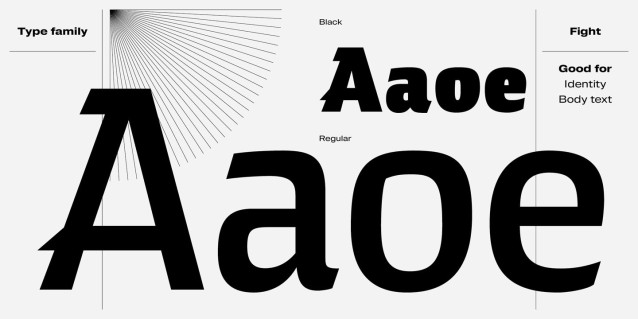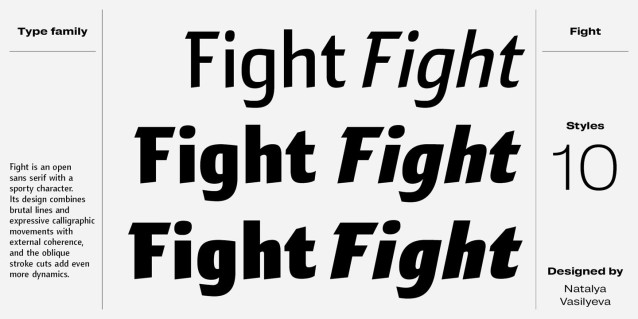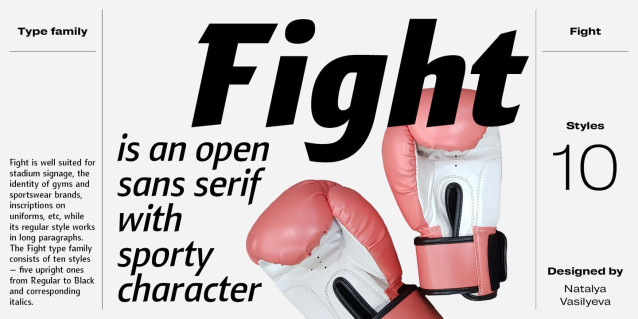
Fight Font Family
Fight Font Family is a modern sans-serif typeface with a sporty edge. Its design blends bold, angular lines with expressive calligraphic curves, creating a harmonious yet dynamic appearance. Oblique stroke cuts add an extra sense of motion and energy to its overall character. Fight is an excellent choice for stadium signage, gym branding, sportswear identity, and more. Meanwhile, its Regular style performs well in longer text passages, offering versatility.
The Fight type family includes ten styles: five upright weights ranging from Regular to Black, each paired with a corresponding italic. The typeface supports Extended Latin, Extended Cyrillic, and Greek scripts. Its character set features oldstyle and tabular figures, a slashed zero, and a variety of useful OpenType features.